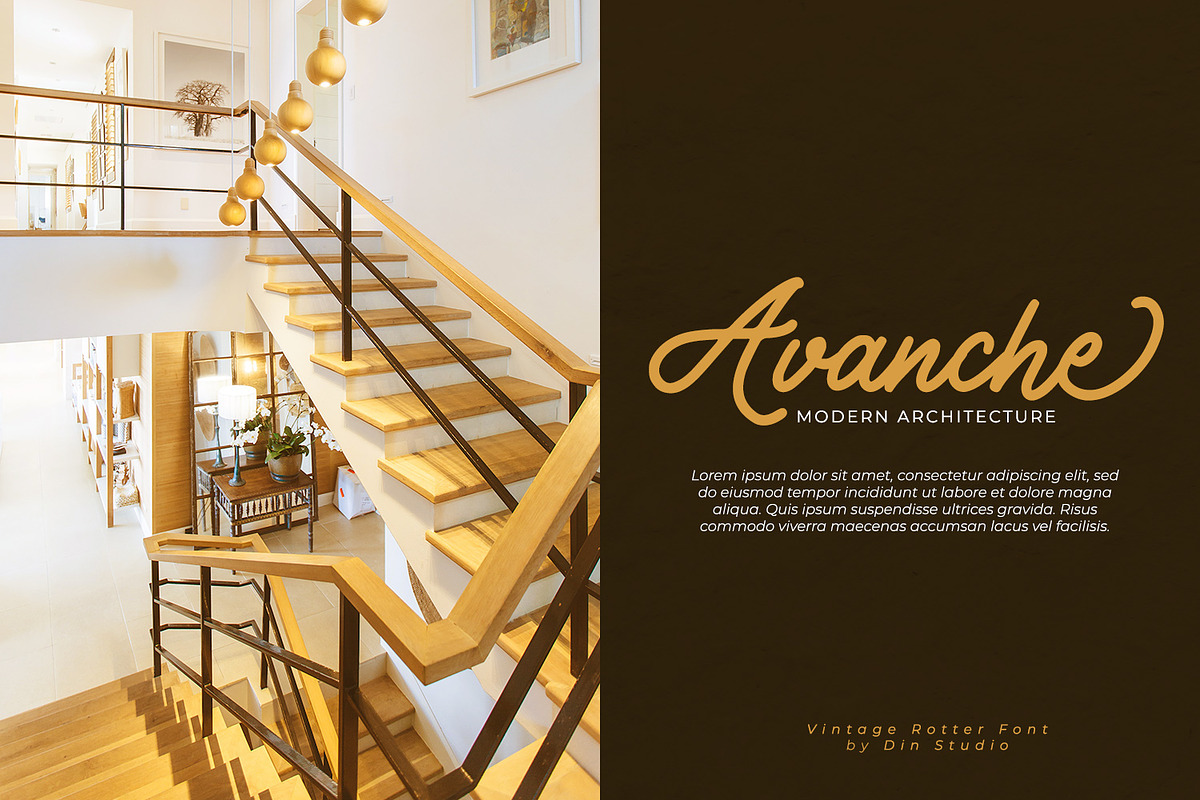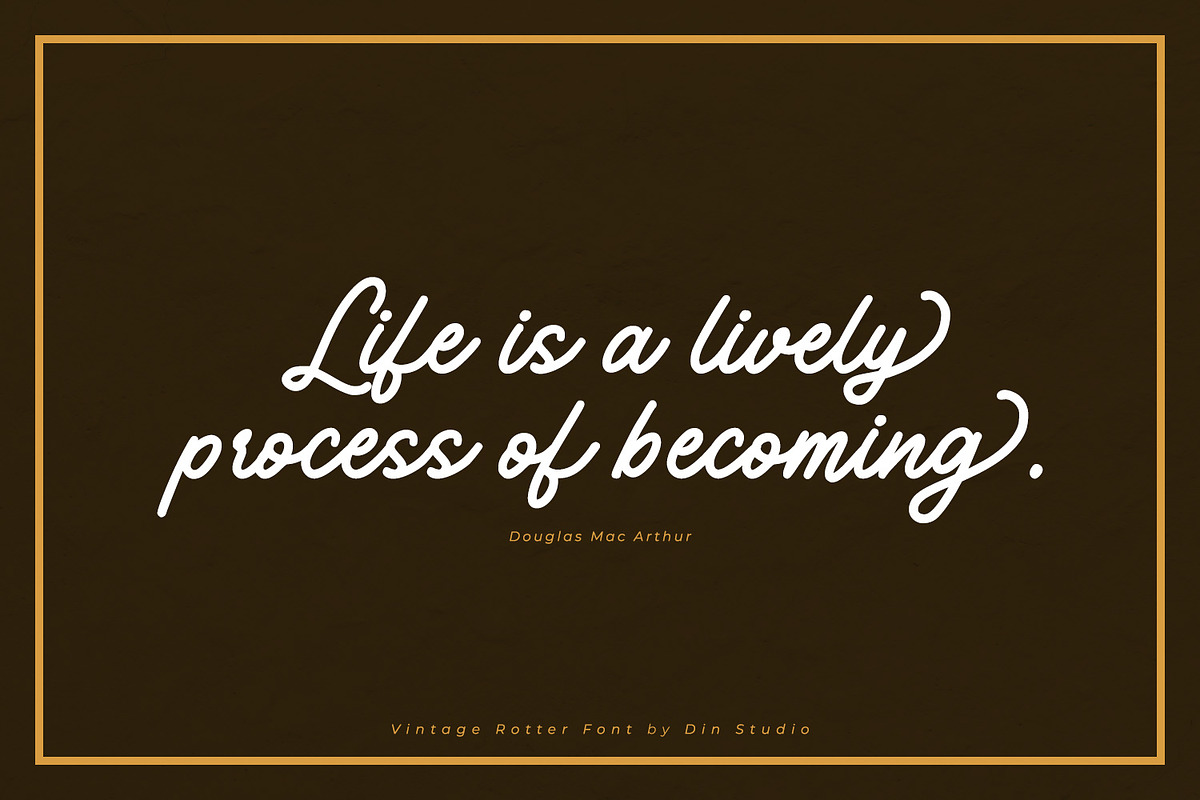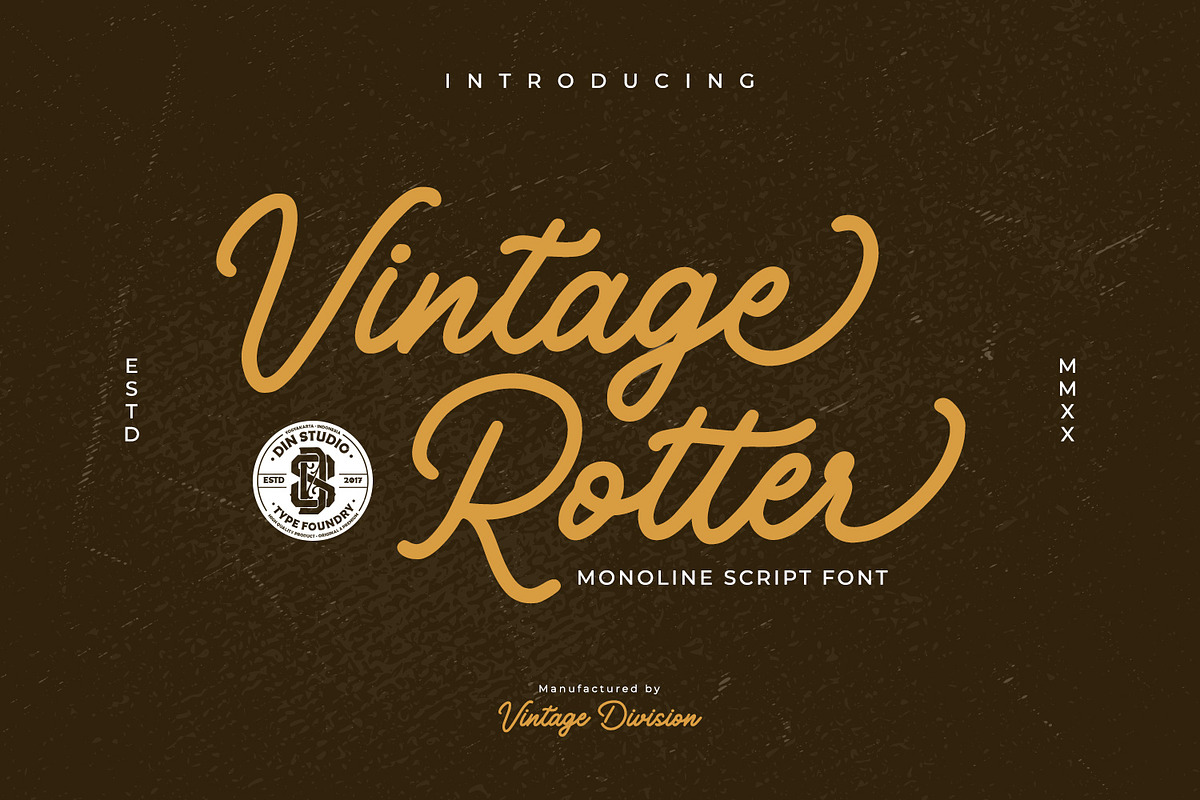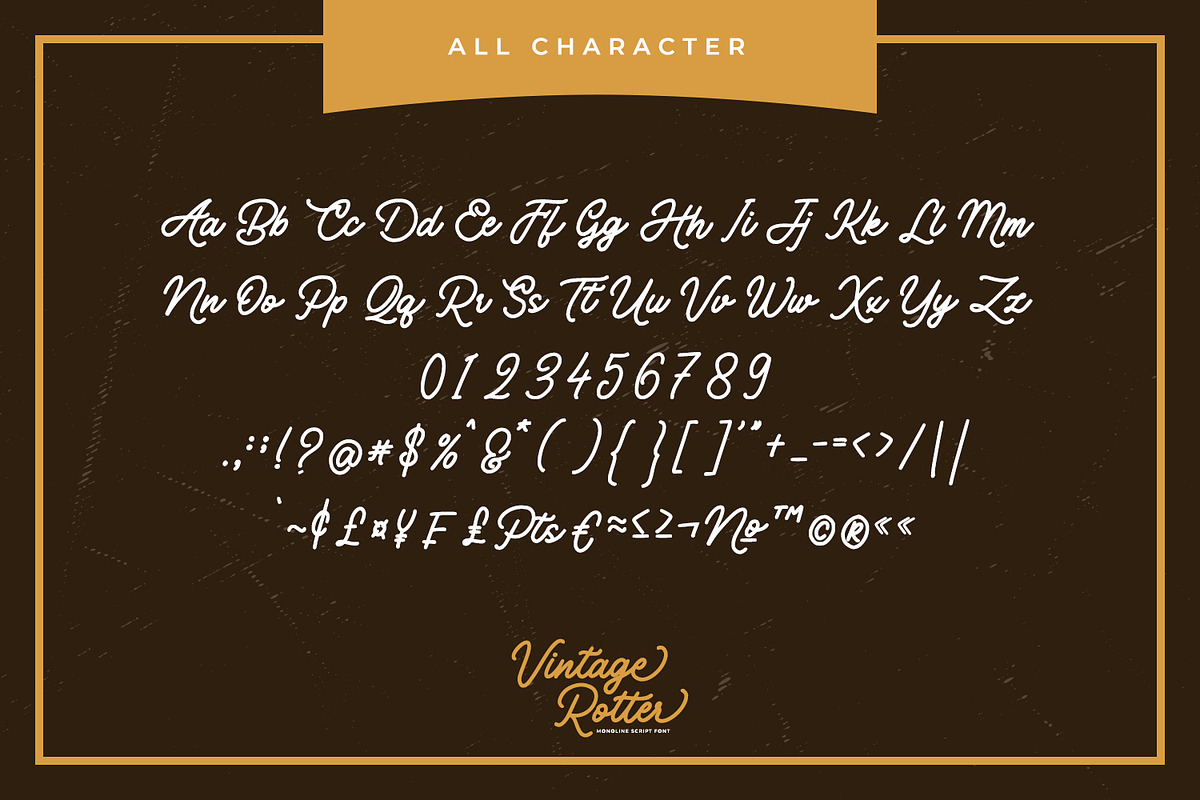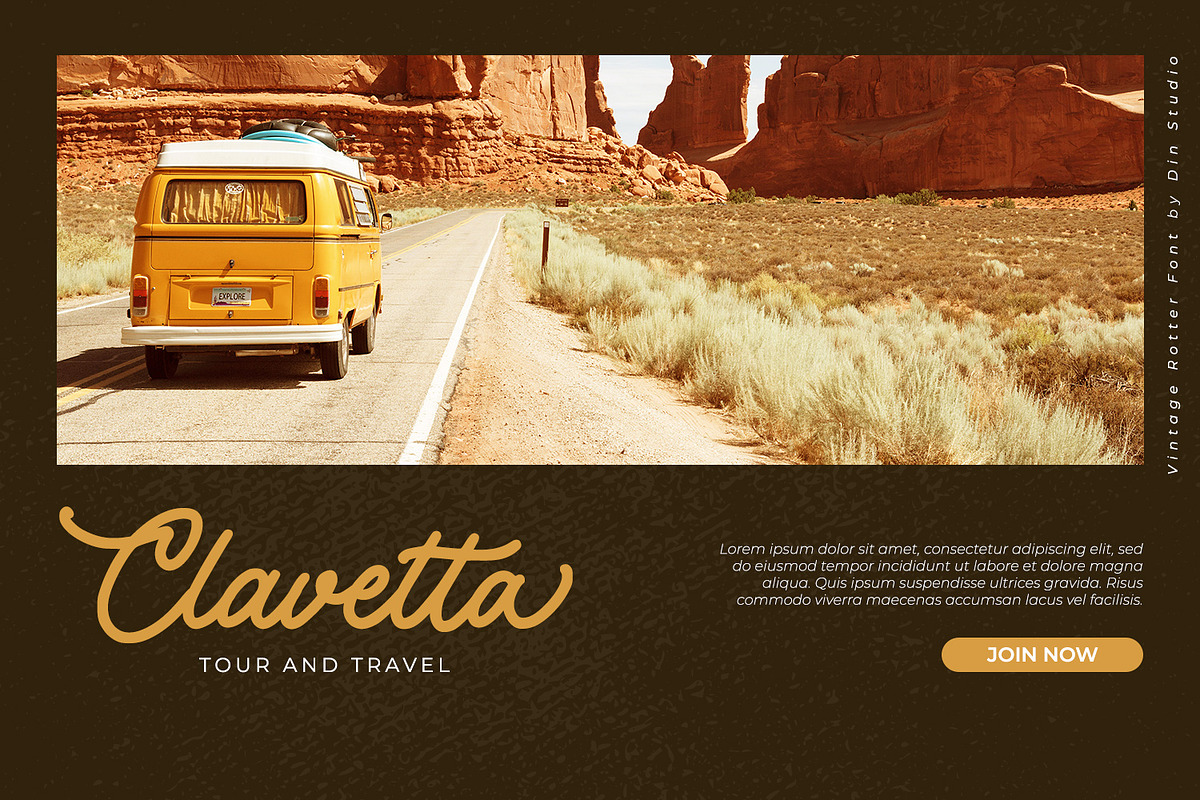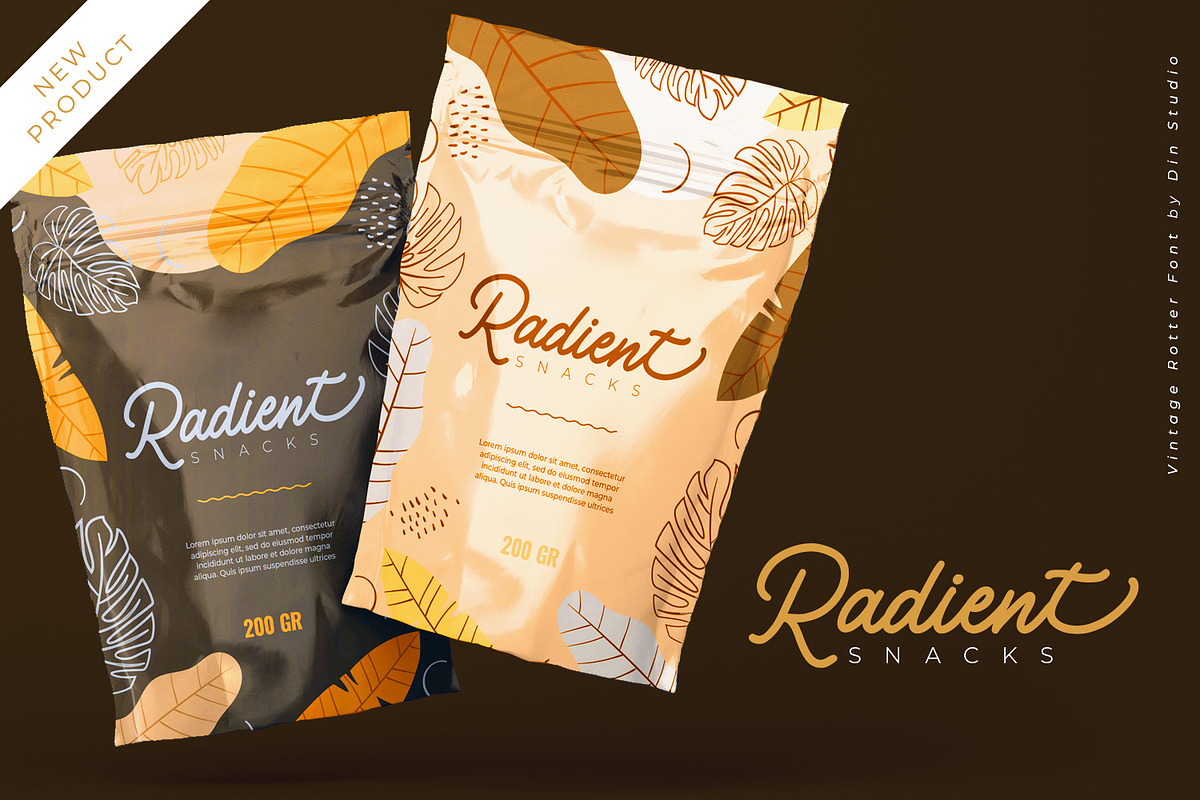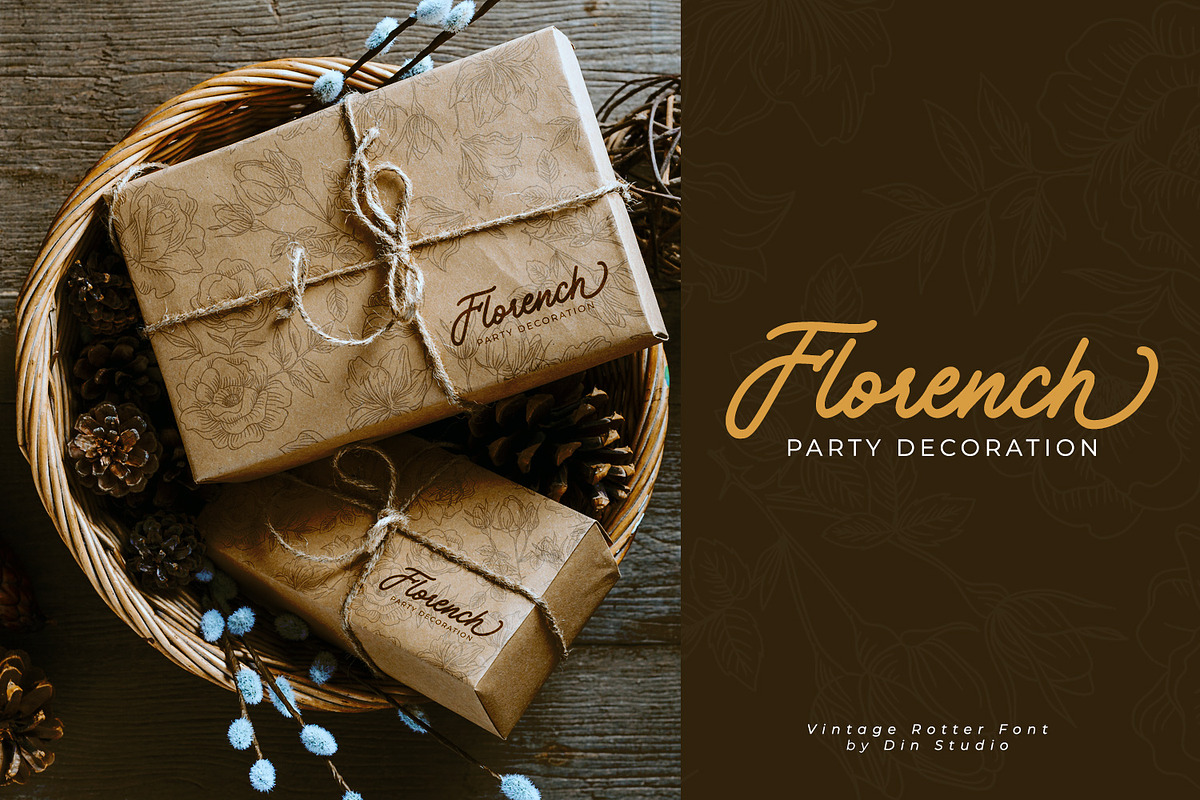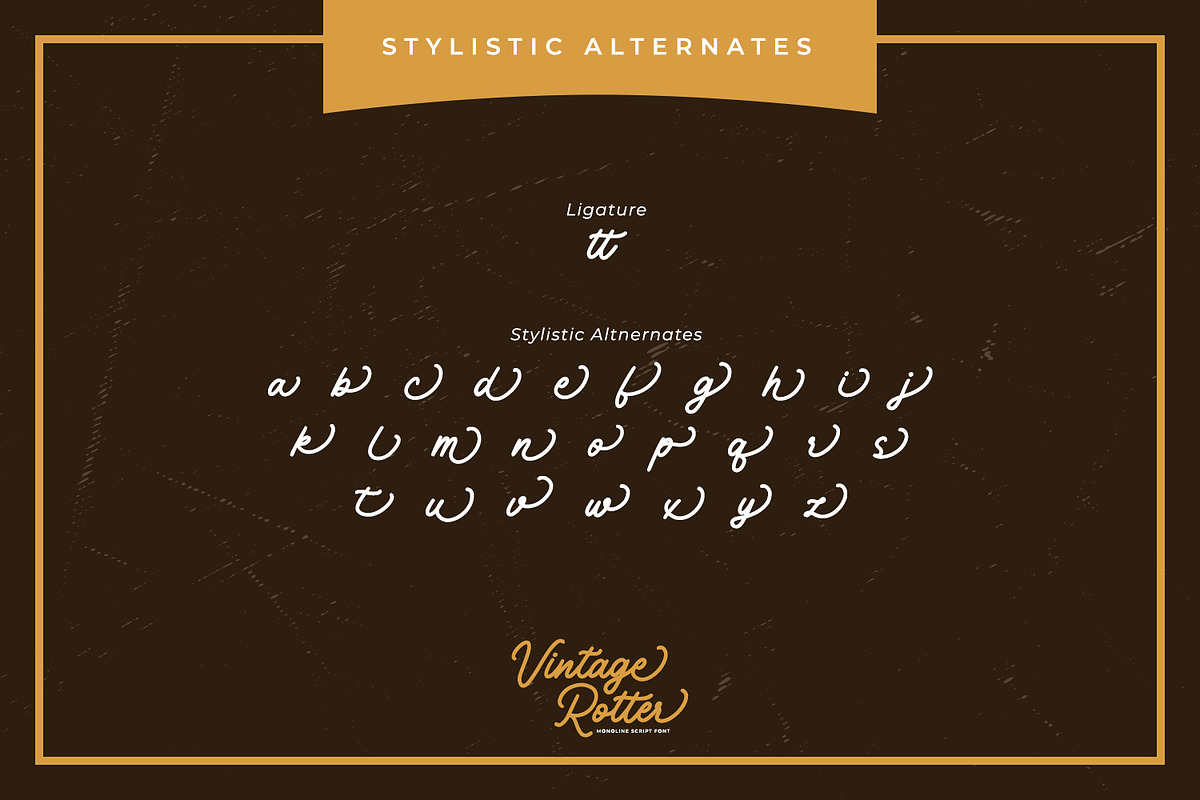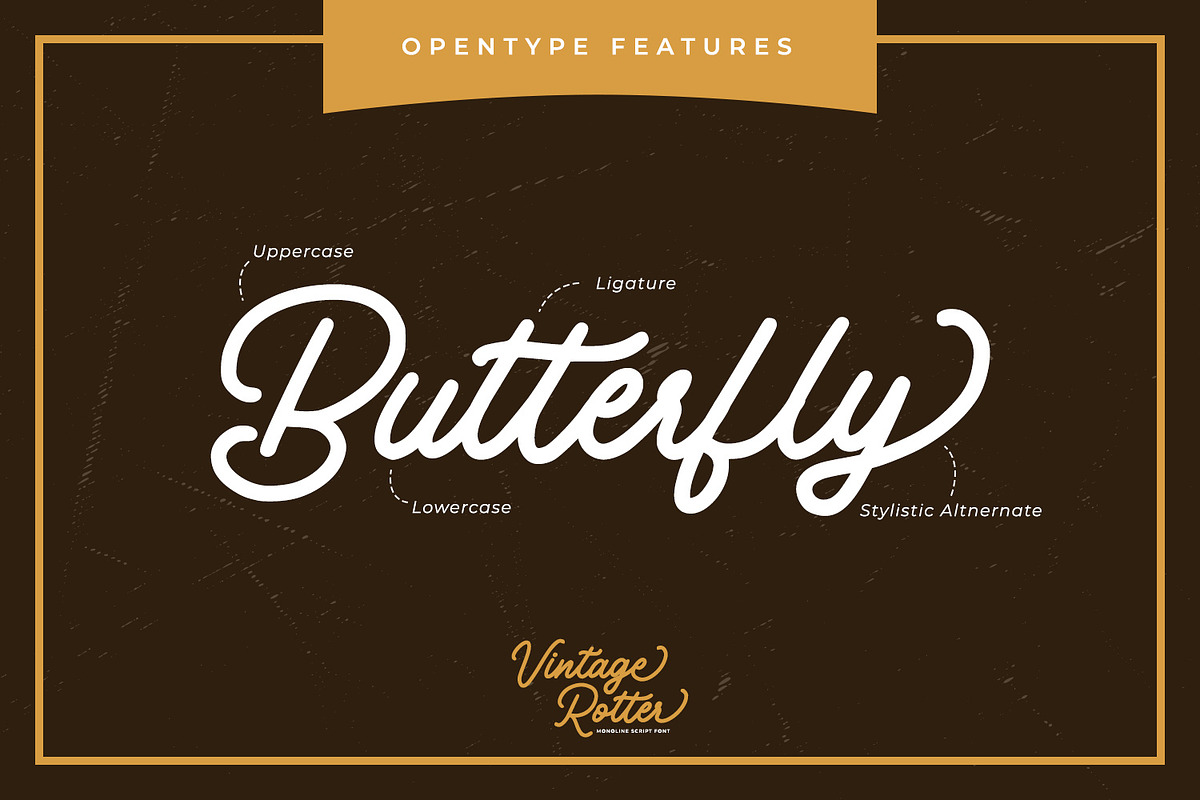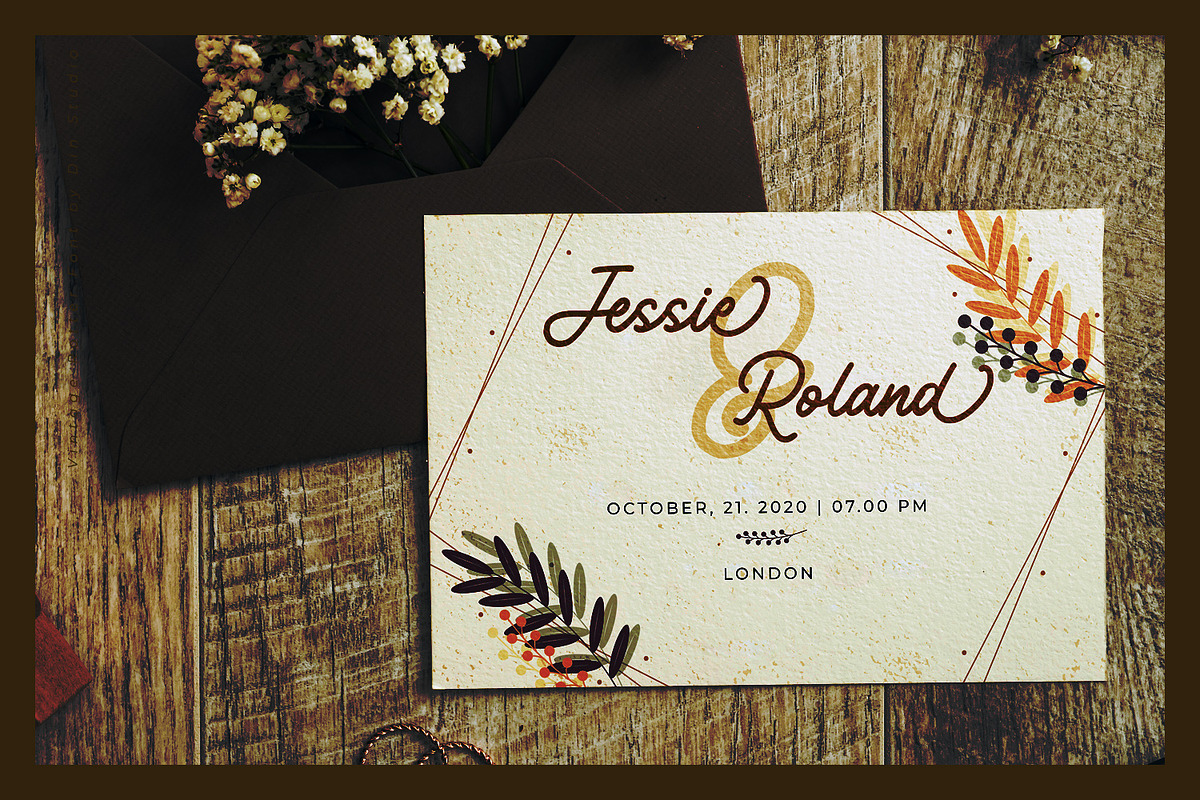
Vintage Rotter
Vintage Rotter is monoline script font. Made for any professional project branding. It is the best for branding, printing, wedding and quotes. Every letter has a unique and beautiful touch.
- Standard Ligature